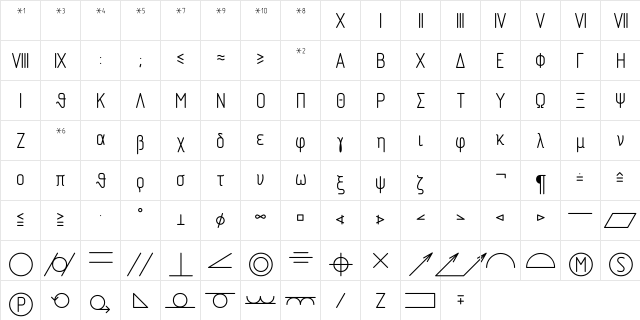
Symbol type A Symbol
Design Context for Symbol type A Typeface
Symbol type A offers clean, dependable letterforms without strong stylistic allegiance, making it a practical choice for designers who need flexibility.